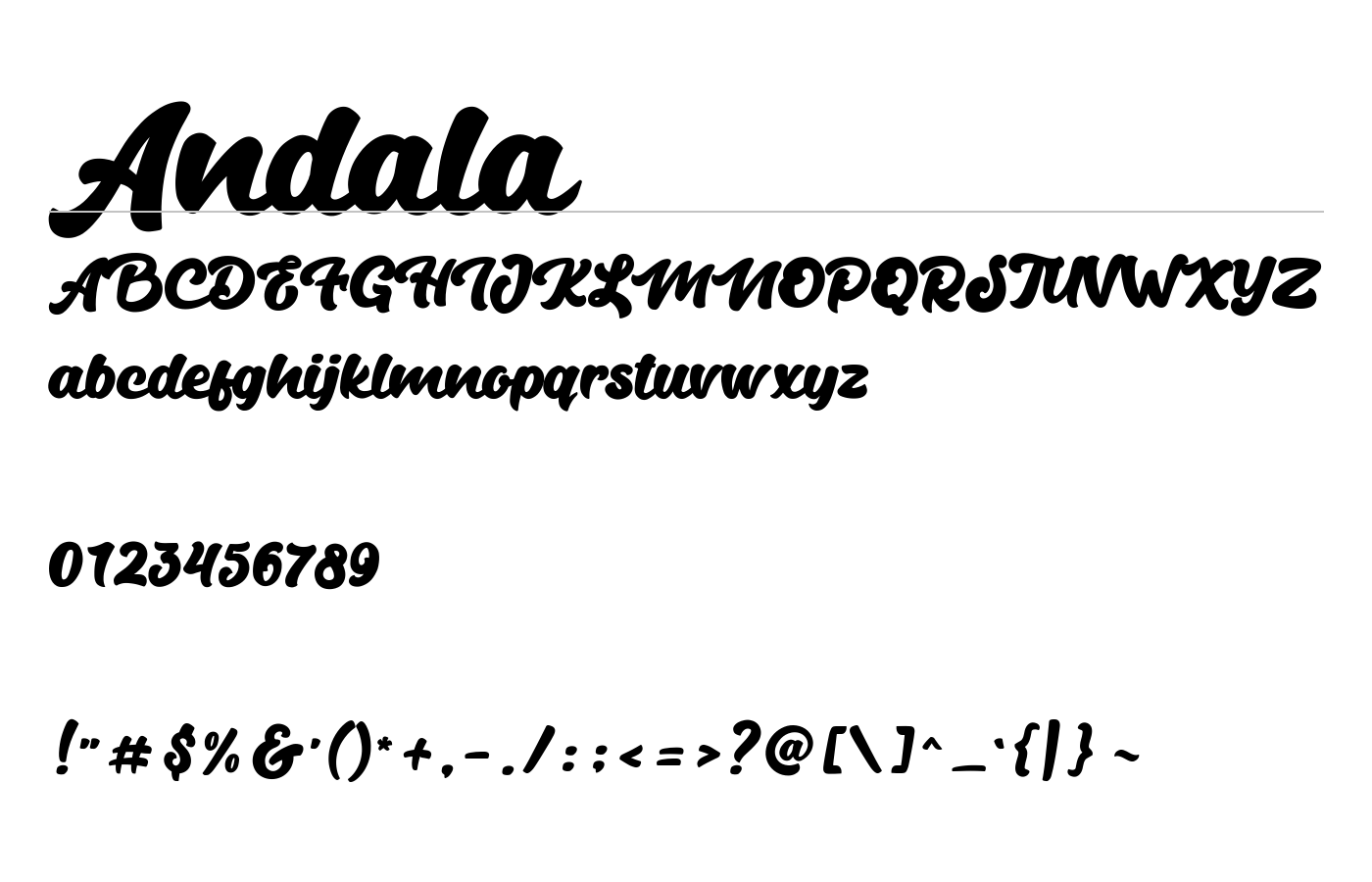
Andala is a bold, cursive script font with a strong personality and smooth, flowing letterforms that create an inviting and friendly atmosphere. Its thick strokes and slightly condensed width give it a confident and modern feel, making it ideal for branding, headlines, and creative projects that want to convey warmth and approachability. This font works well in logos, packaging, and advertising where a lively and engaging style is desired.
Andala Font
About Andala Font
| Font family | Andala Font |
| Designer | Auratype |